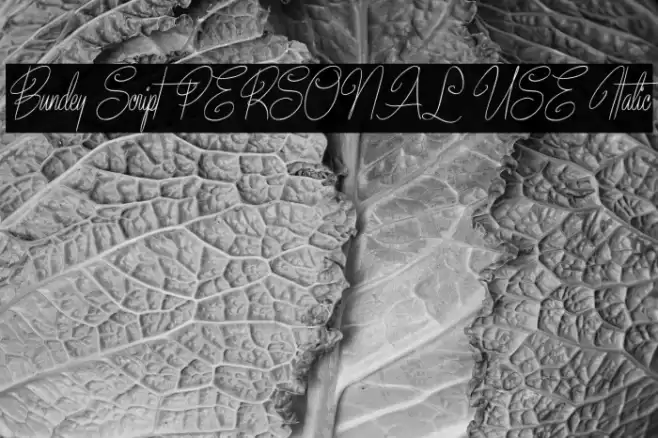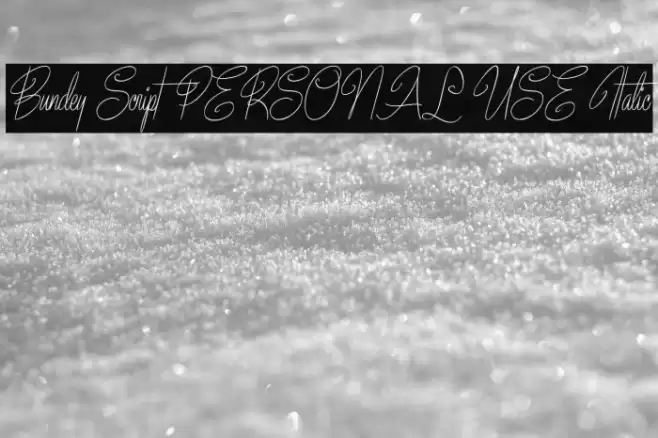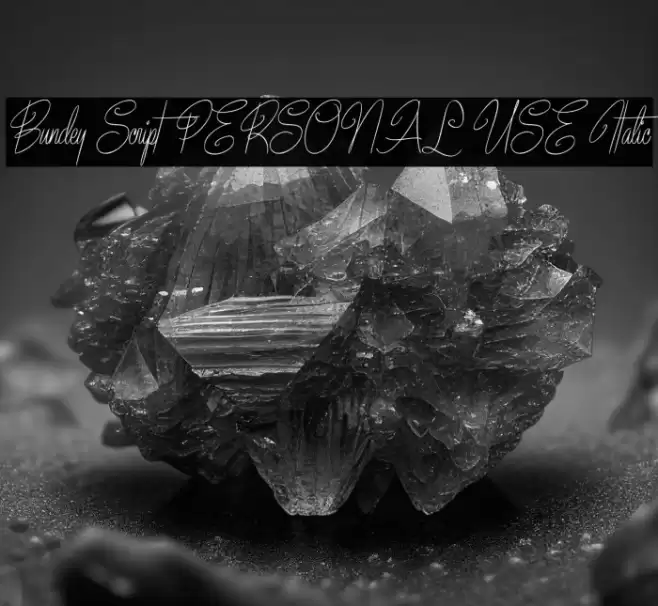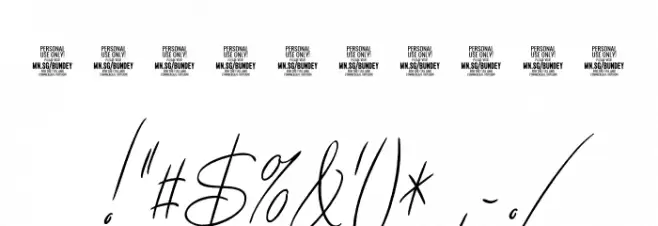
Bundey Script PERSONAL USE Italic Font
Bundey Script PERSONAL USE Italic Description
This elegant script font features flowing, interconnected letters that exude a sense of sophistication and grace. The uppercase letters are characterized by their tall, slender forms with delicate loops and swirls, while the lowercase letters maintain a consistent, fluid motion. The font's italic style enhances its dynamic appearance, making it ideal for conveying elegance and refinement. The numerals and special characters are crafted with the same attention to detail, ensuring a cohesive look across all text elements. The overall design is both decorative and functional, suitable for a variety of creative applications.
A graceful, flowing script font with elegant, interconnected letters from Uncategorized fonts.
- Proposed Projects: Ideal for wedding invitations, elegant branding, greeting cards, and upscale packaging.
- Character Spacing: Tight
- Overall Style: Elegant, Decorative
- Use Case: Logos, Invitations, Decorative text